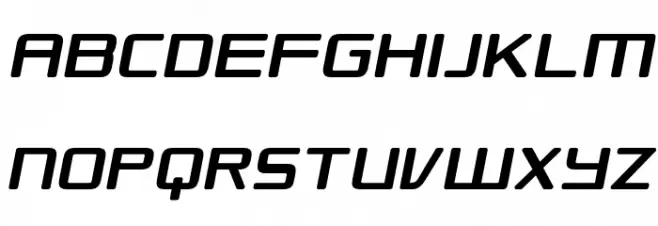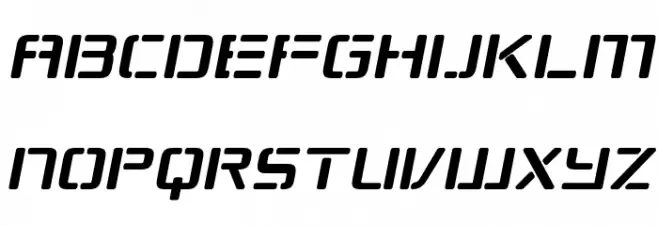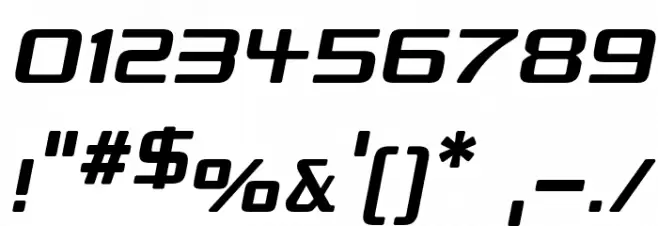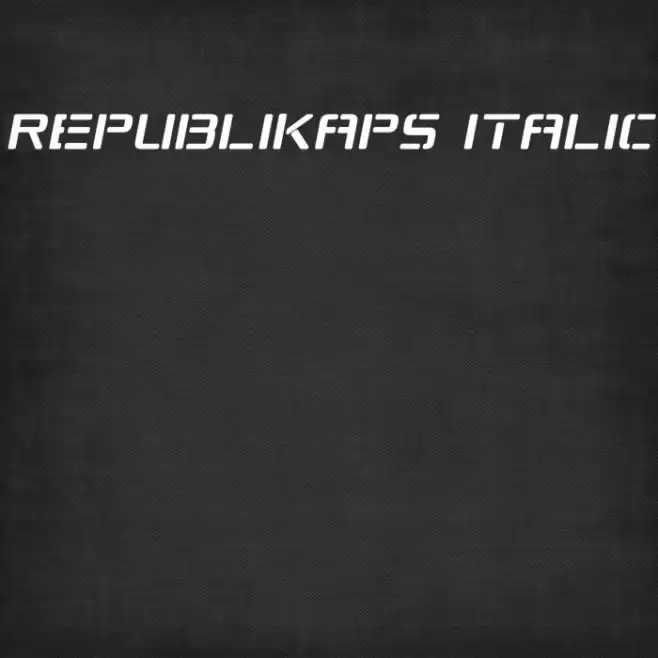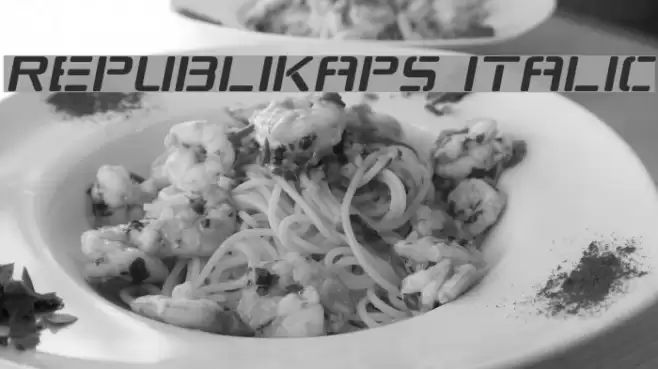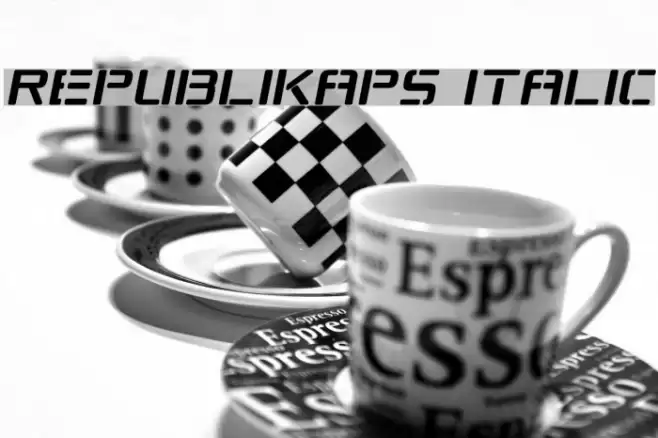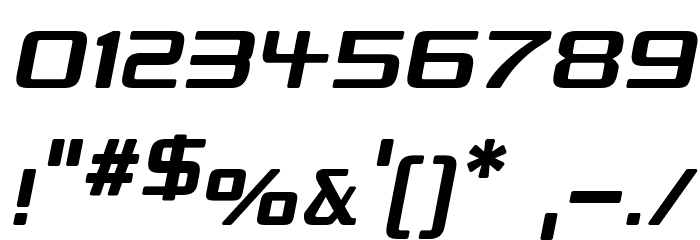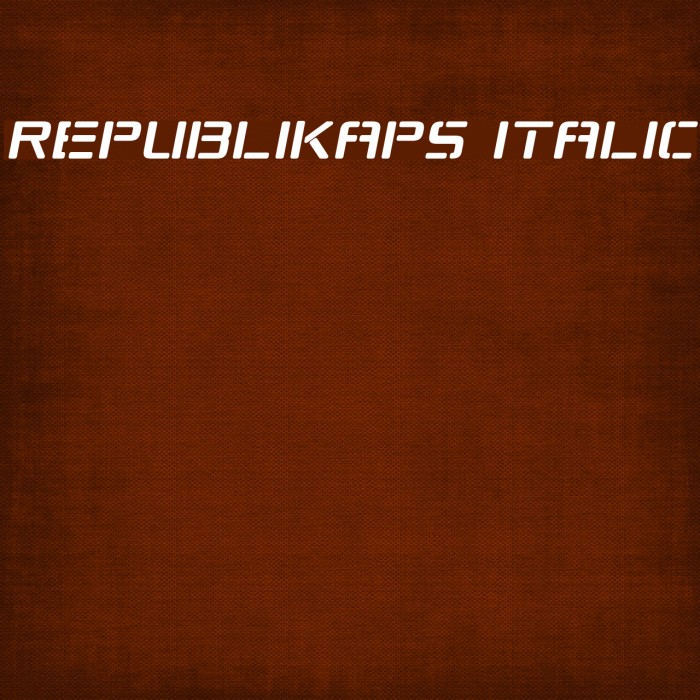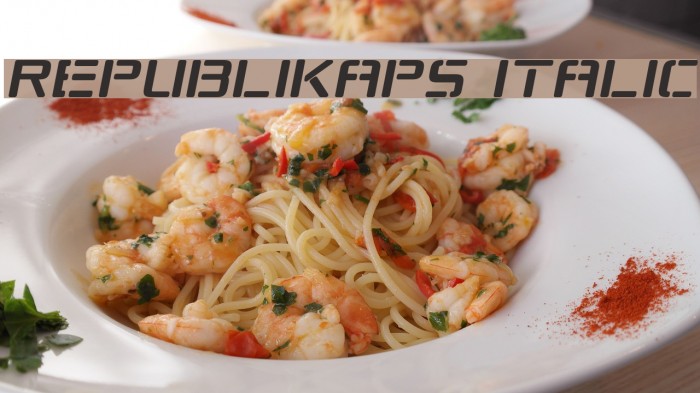
Republikaps Italic
This font features a modern, italicized style with a sleek and futuristic appearance. The characters are slightly slanted, giving a sense of motion and dynamism. The strokes are consistent in thickness, providing a uniform look across all characters. The design is clean and geometric, with rounded edges that soften the overall appearance. This font is well-suited for digital and print media, offering a contemporary and stylish aesthetic that can enhance various design projects.
A modern, italicized font with a sleek, futuristic style and consistent stroke thickness.
- Proposed Projects: Ideal for technology branding, modern advertising, digital interfaces, and futuristic-themed designs.
- Use Case: Headlines, Logos, Digital interfaces